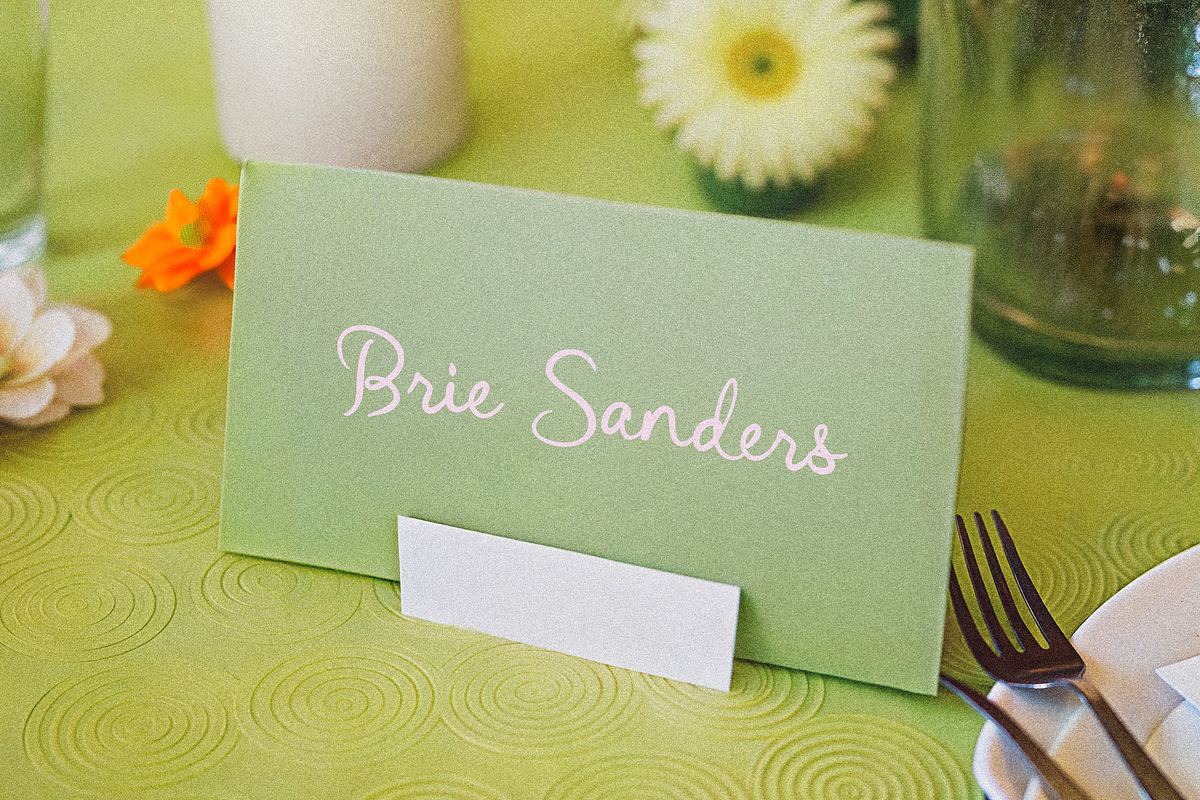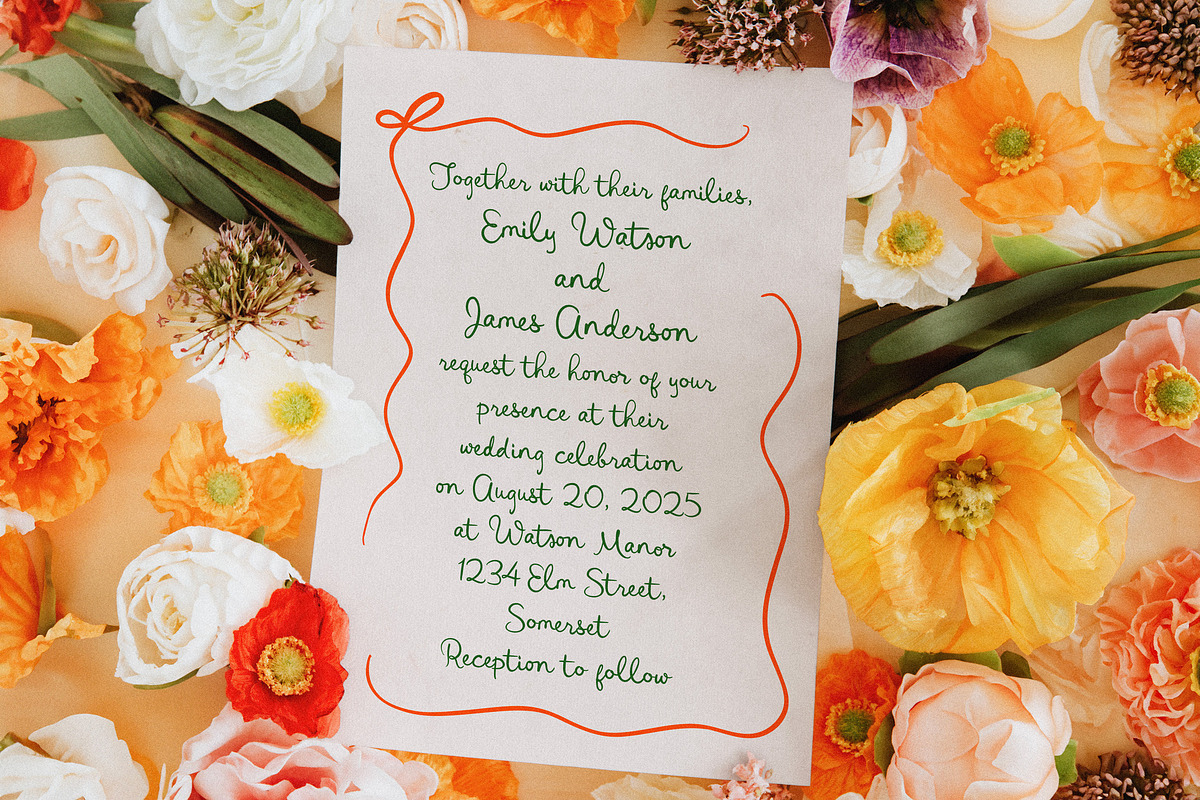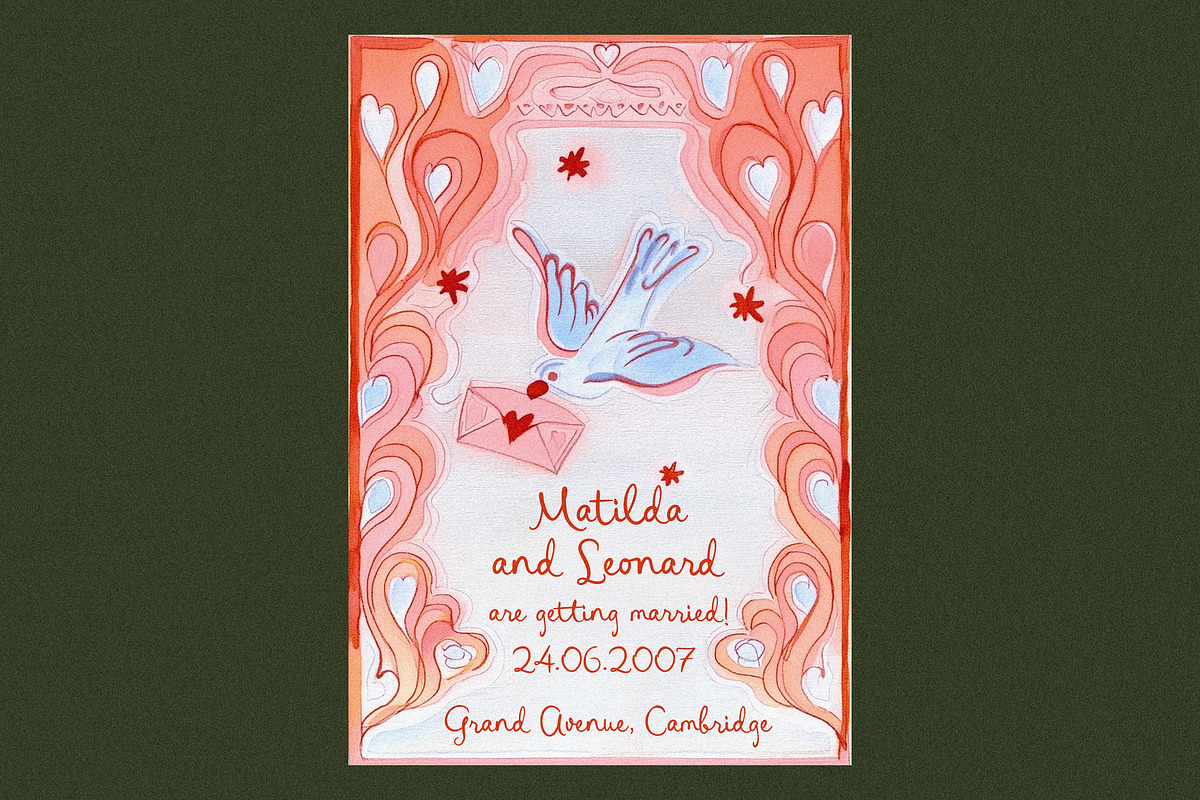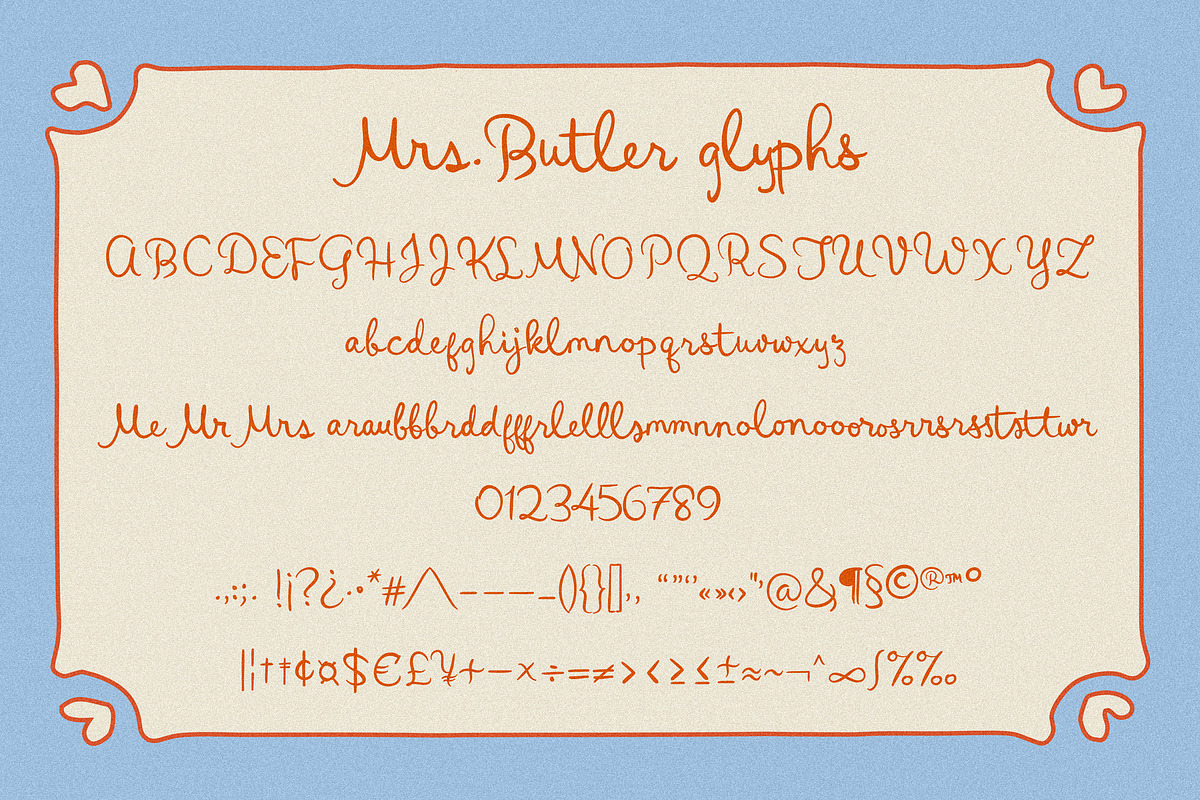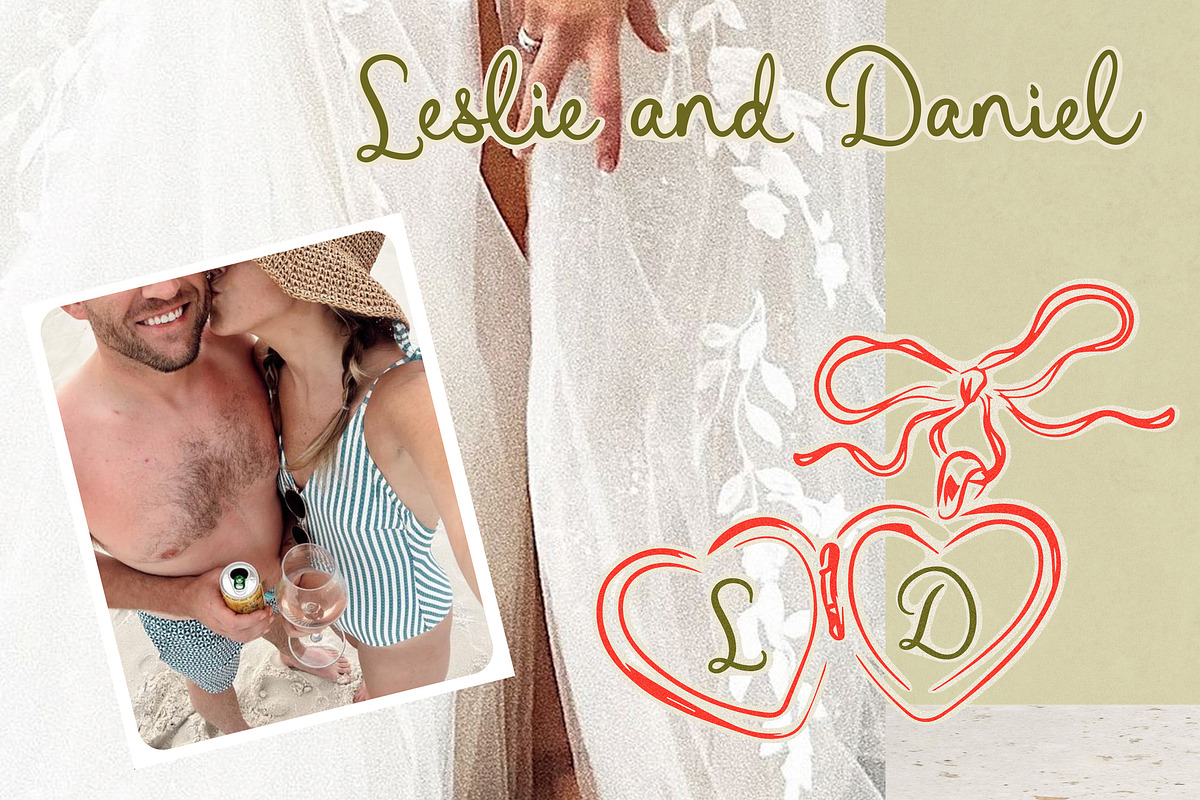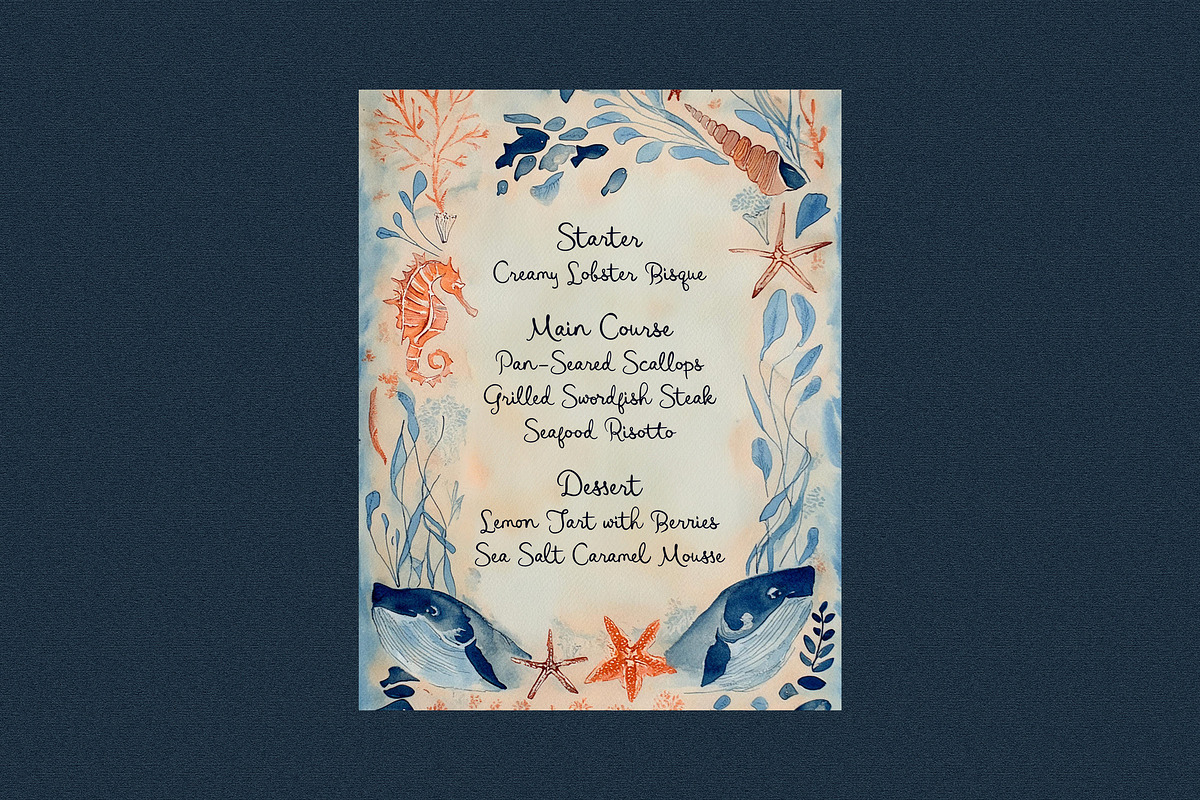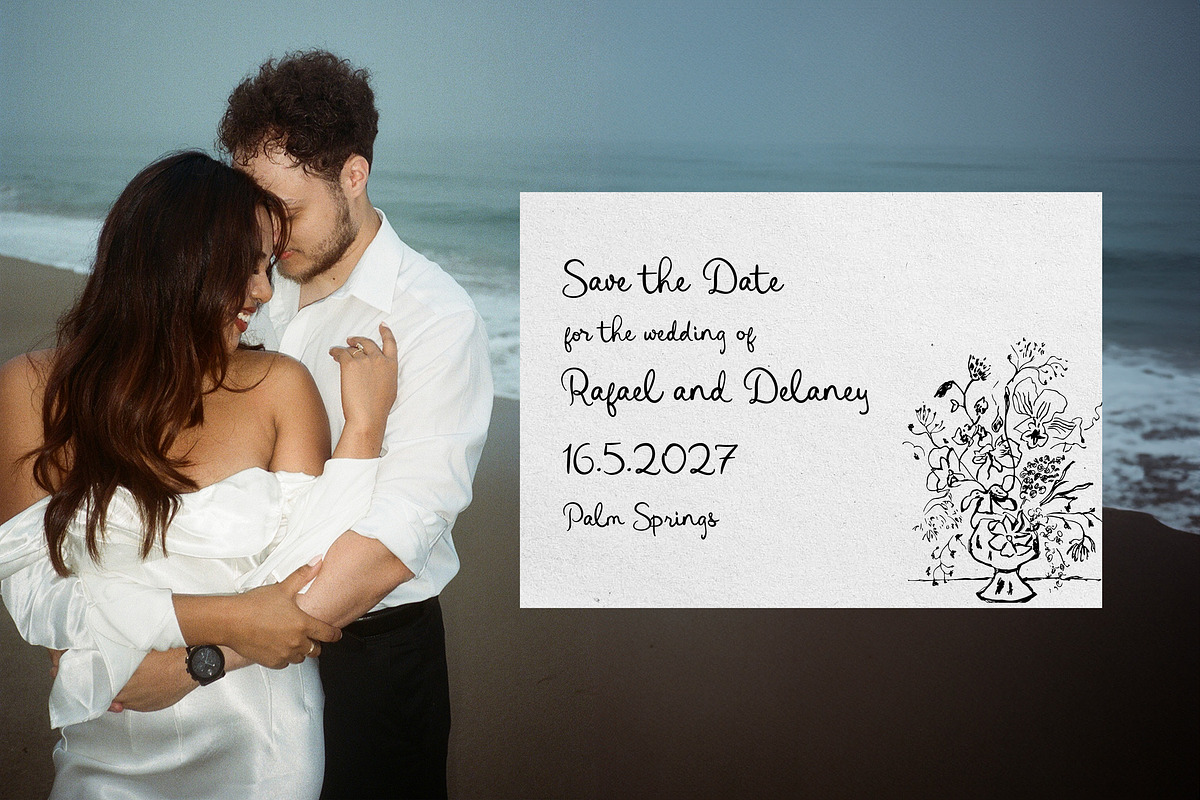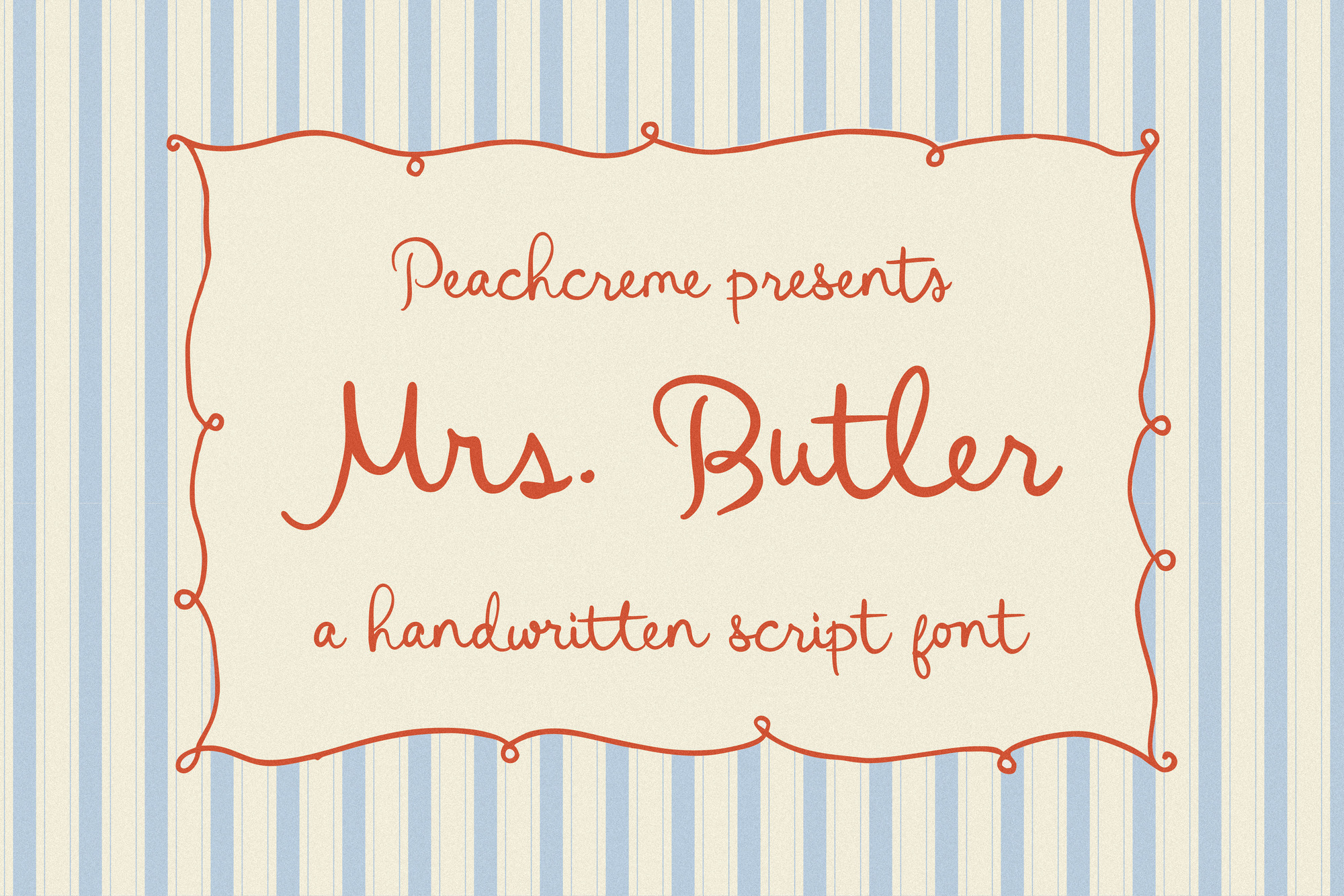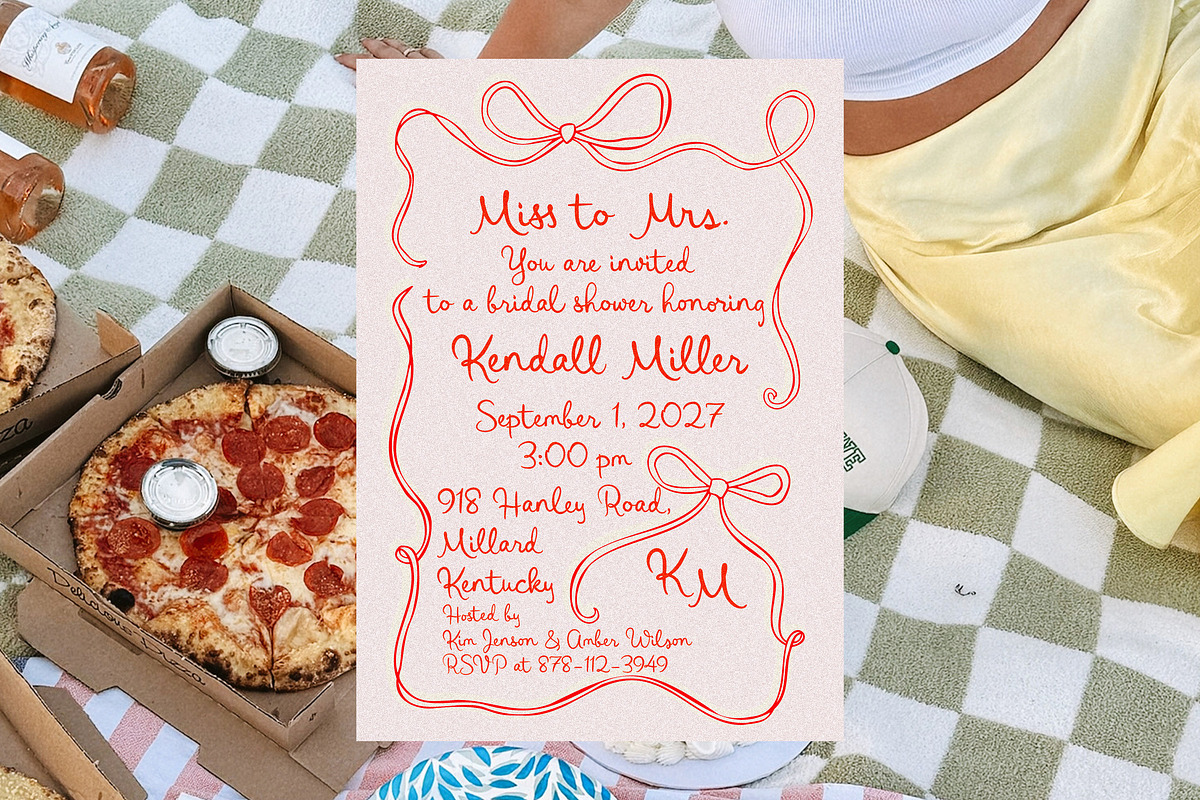
Mrs.Butler // Quirky Wedding Font
Peachcreme presents Mrs. Butler, a playful handwritten script font with 26 unique ligatures. Ideal for wedding invitations and other special occasions, Mrs. Butler brings a charming and casual touch to your designs.